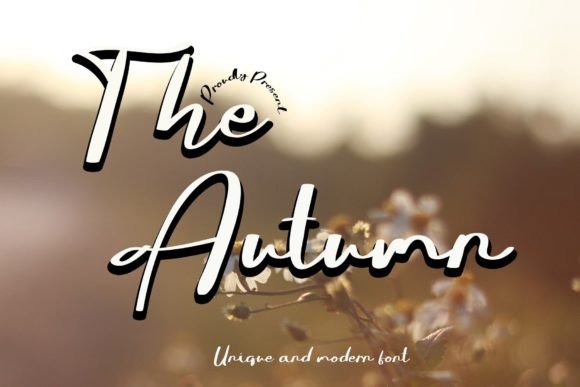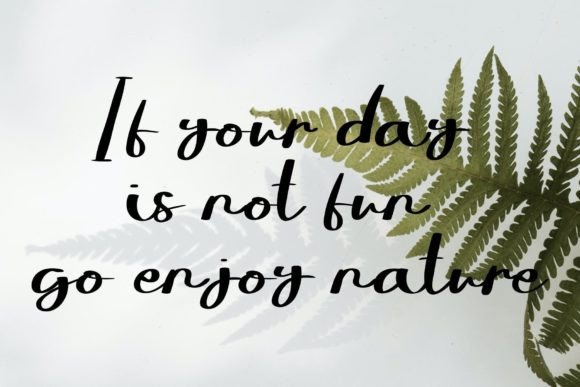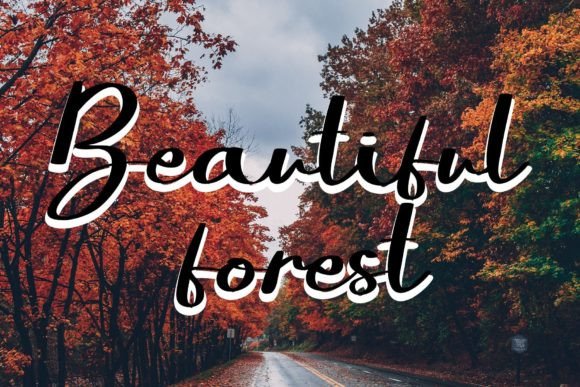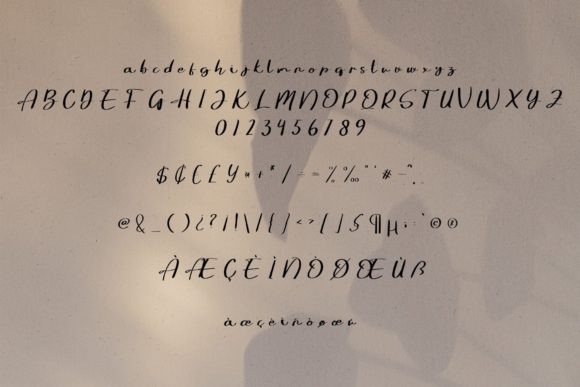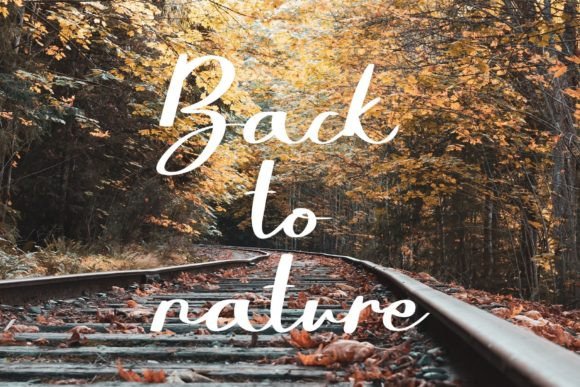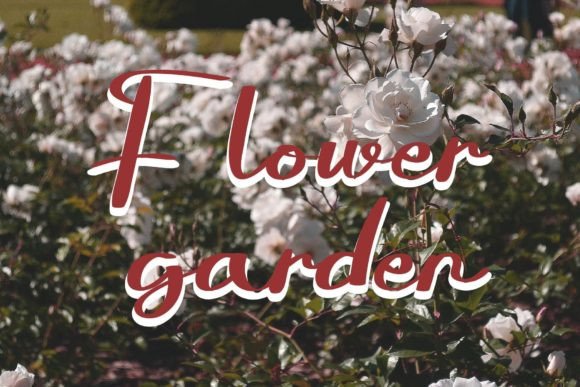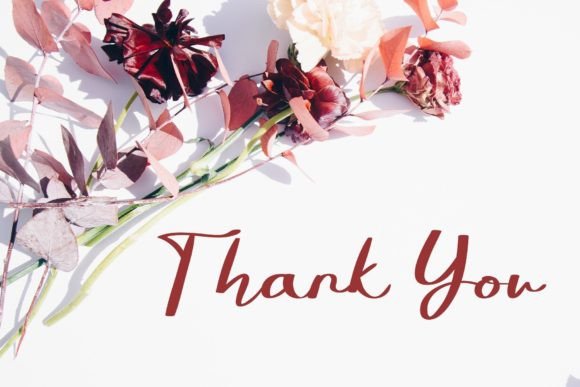
The Autumn Font
About The Autumn Font
“The Autumn” is not just a font; it’s a lovely and timeless handwritten typeface that stands out as the best choice for creating eye-catching logos, branding, and quotes. Every letter in “The Autumn” possesses a unique and beautiful touch, making your design come alive with a distinct and captivating charm.
The timeless and handwritten qualities of “The Autumn” make it a versatile font for a range of design applications. Whether you’re working on logos that require a touch of nostalgia, branding materials, or crafting quotes that demand a sense of elegance, this font adds a special and beautiful character to your text.
Imagine “The Autumn” gracing your logos, creating a visual experience that is both timeless and eye-catching. Each letter contributes to the overall charm, making your brand identity memorable and distinctive.
For branding purposes, “The Autumn” becomes a key element in creating a unique and recognizable visual identity. Its handwritten style adds a touch of authenticity, enhancing the overall appeal of your brand.
In quotes and other creative projects, “The Autumn” serves as a font that brings a timeless and beautiful touch. The uniqueness of each letter enhances the emotional impact of your message, making it more engaging and memorable.
Whether you’re working on print materials, digital designs, or any other creative endeavor, “The Autumn” is a design companion that adds a lovely and timeless character. Let “The Autumn” be the typeface that elevates your logos, branding, and quotes, making them stand out with a beautiful and captivating allure.